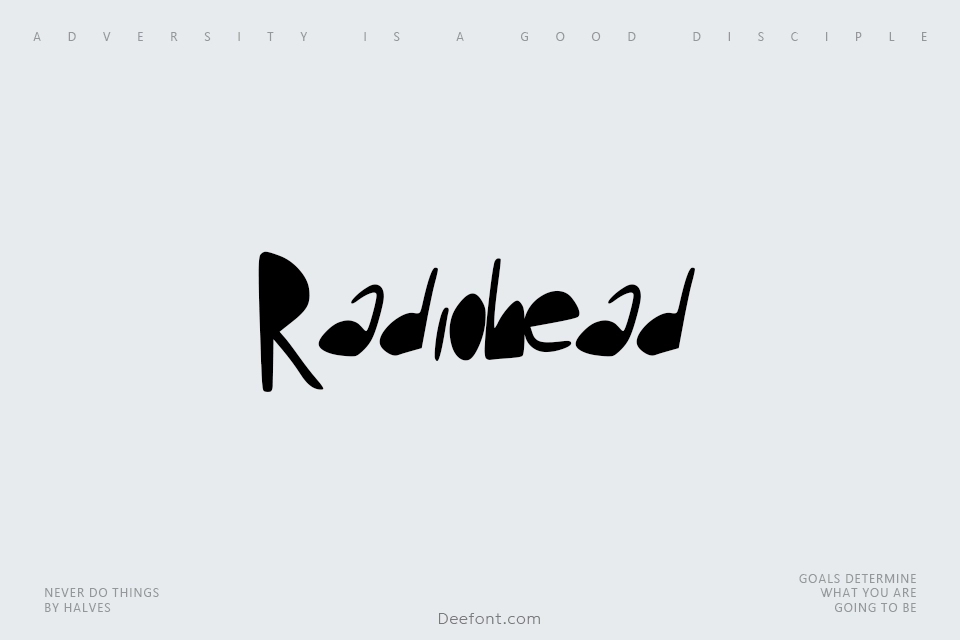
Radiohead Font
Radiohead is a playful and artistic script font designed by India M, featuring quirky hand-drawn characteristics with unique letterforms and informal styling. This versatile typeface perfectly captures creative expression, making it ideal for artistic projects, music-related designs, and casual branding applications. With its distinctive personality and flowing variations, Radiohead adds character and individuality to any design.